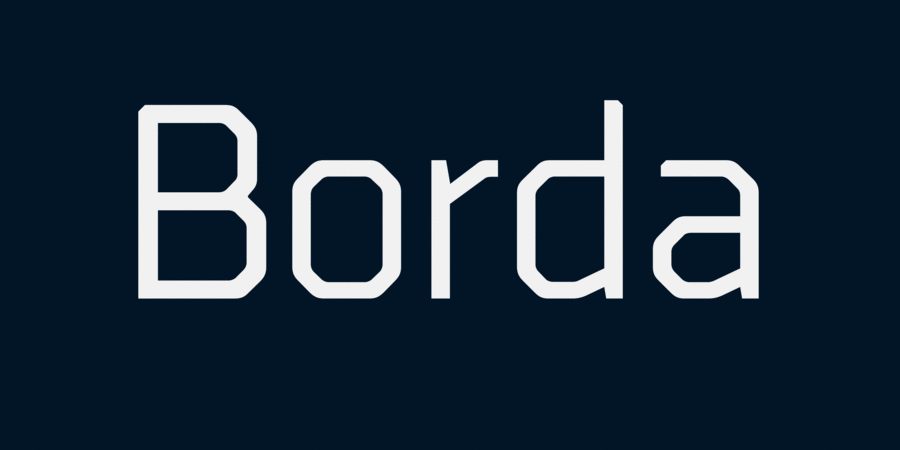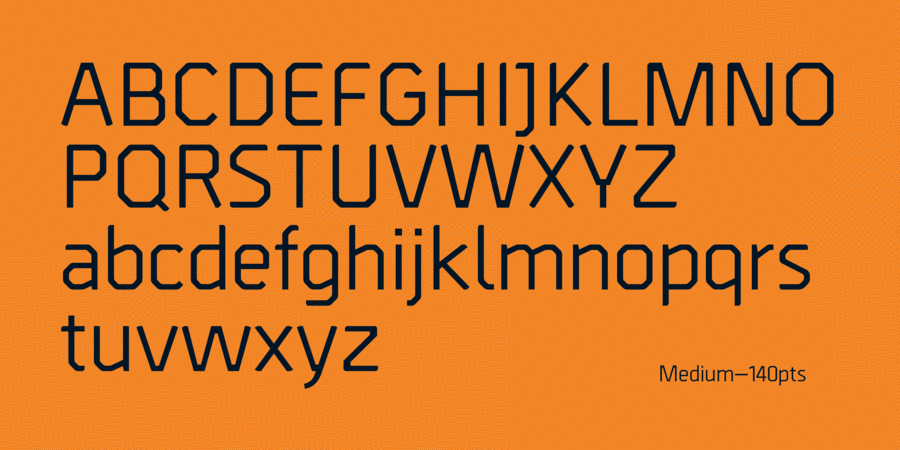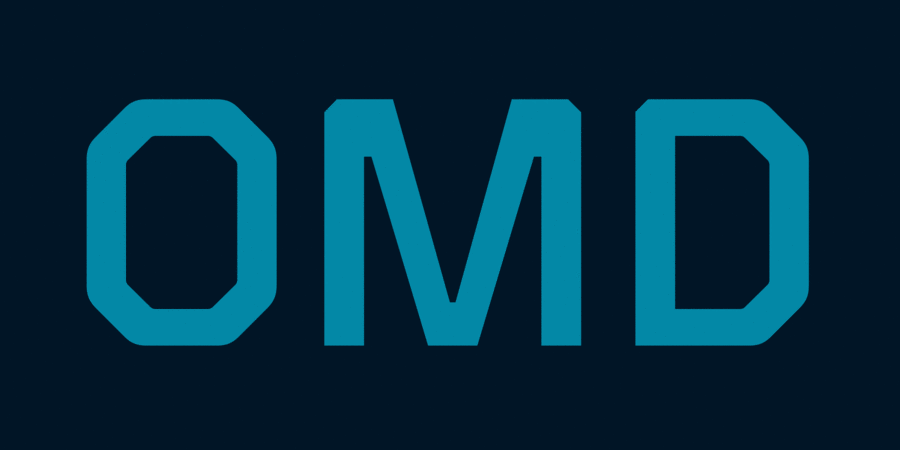
About BordaA carefully drawn geometric typeface. Exacting angles are combined with smooth corner details to form a clean, legible font with a modern appearance. The compact nature of the letterforms allows for great use of space across text layouts. Details include 6 weights with italics, an extended European character set, European and Asian Cyrillic including Bulgarian forms, manually edited kerning and Euro symbol. Borda™ is a trademark of The Northern Block. Designed by Jonathan Hill in 2012.
Associations for font family BordaTypeface personality and character:
flat, square, accurate, logical, cold, automatic, technogenic, solid, static, cutting, crisp, stable, thin, easy, rectangular, urban, modern, machine, sharp, engineering, urbanistic, schematic, glass, fragile, futuristic, wire, faceted, simple, self-assured, steel, space, indifferent, reliable, convincing, serious, strong, industrial, iron, manly, military, army, railway, high-speed, sportive, workman, cinematic, game, heavy, powerful, formidable, severe, authoritative, rude, loud, durable, daring, important, monumental, tough, ambitious, sexy, brutal
constructor, scheme, architecture, engineer, automation, urban studies, science, design, city, statistics, gadget, electronics, technology, sci-fi, space, tool, robot, game, device, IT specialist, IT, android, hardware, coworking, x-ray, cinema, astronomy, car, industry, war, army, weapons, factory, metallurgy, machine tool, packing, stock, port, box, ammunition, equipment, repairs, depot, helmet, uniform, railway carriage, aviation, aircraft, machine, Shooter, action, transport, airsoft, footwear, railway, computer game, sport, mechanical engineering, security, protection, fuel, police, construction, building, brick, bus, workman, cubes, lego, cybersport, selfie, rally, power station, tank, truck, fitness equipment, excavator, SUV, blockbuster, thriller, trucker, rap music, concert, Superhero, disco, aquadiskotheque, energy industry, motor, engine Typeface associated with age: